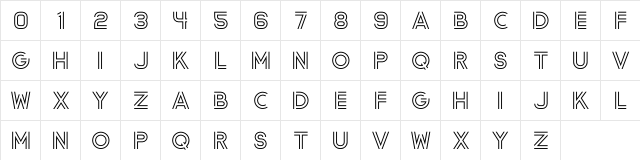
Gope Regular
| Designer | Muhammad Husni Haikal |
Design Context for Gope Typeface
Gope offers clean, dependable letterforms without strong stylistic allegiance, making it a practical choice for designers who need flexibility.